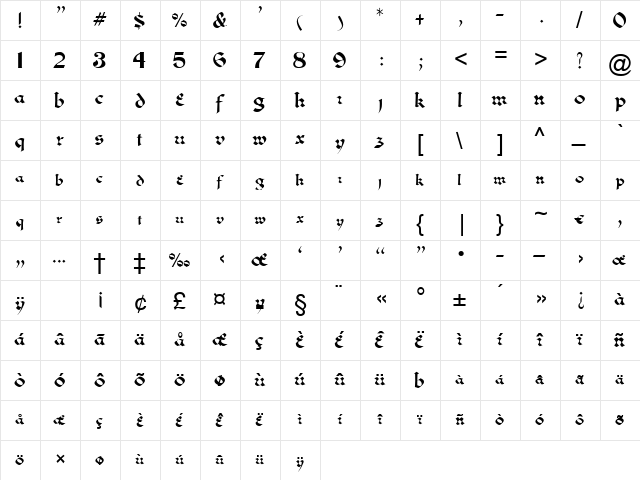
Zypresse Regular
Design Context for Zypresse Typeface
Zypresse is a composed and adaptable typeface that performs quietly and consistently across a wide range of design contexts.